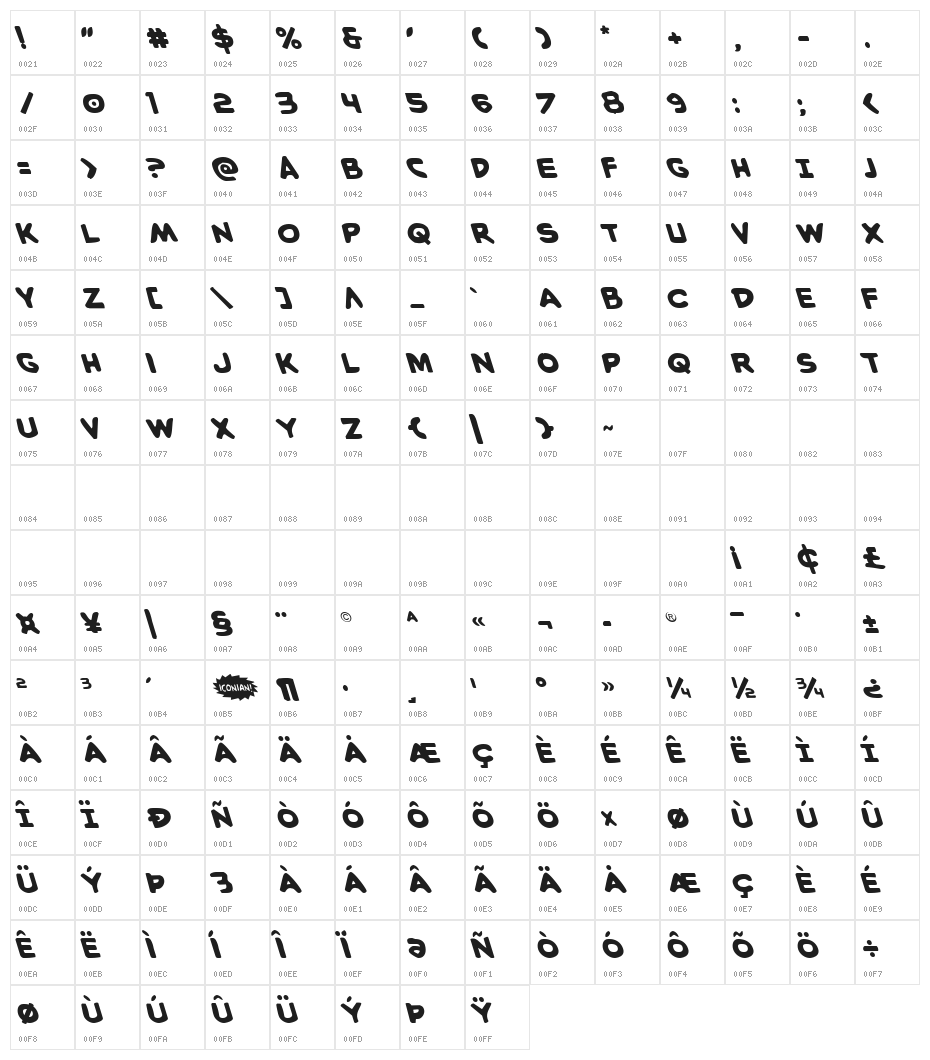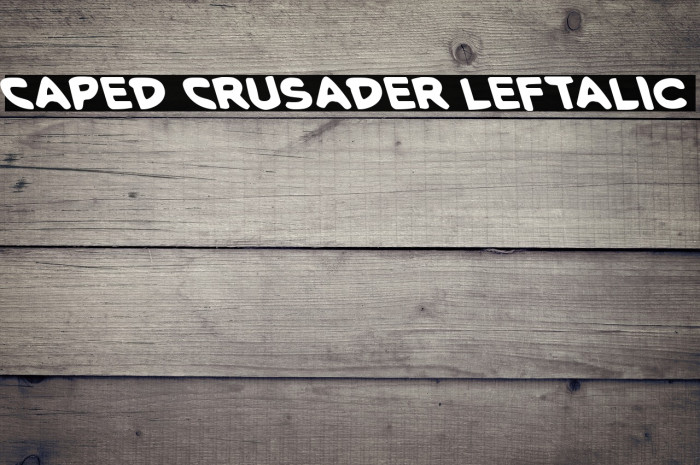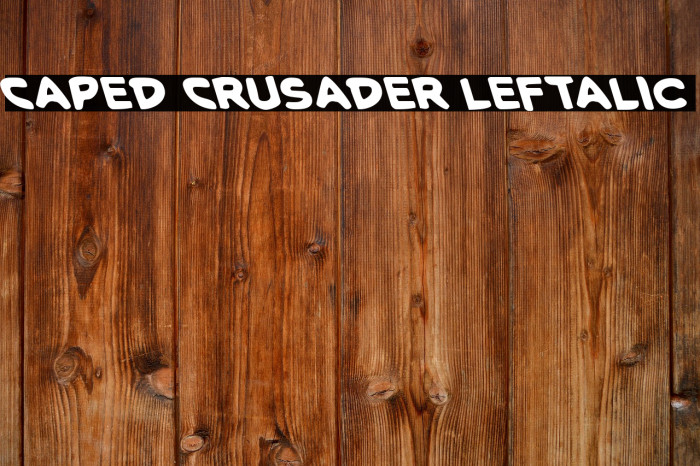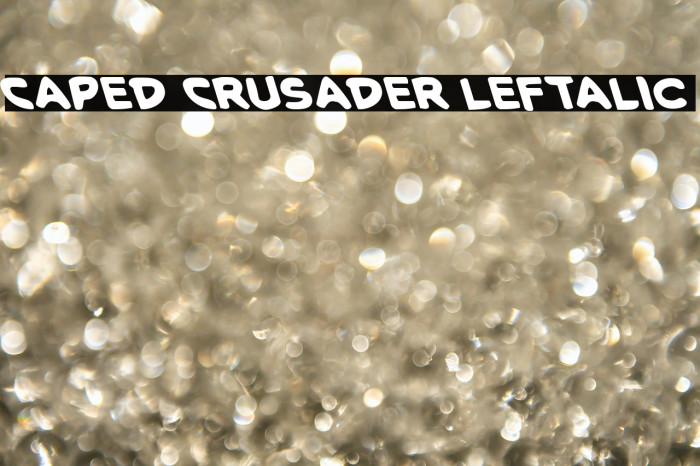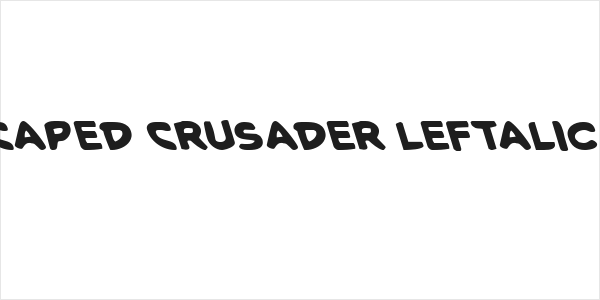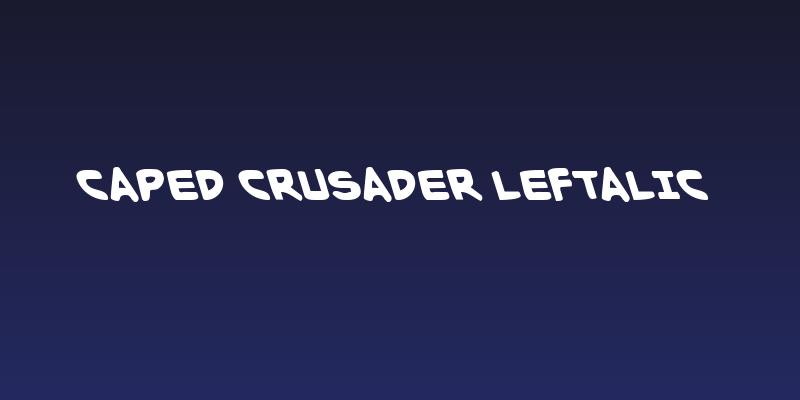
Caped Crusader Leftalic Font
Caped Crusader Leftalic Description
This font features a bold and playful design with a distinct leftward slant, giving it a dynamic and energetic appearance. The characters are rounded and thick, providing a sense of robustness and approachability. The uppercase and lowercase letters maintain a consistent style, with a slightly exaggerated curvature that adds to the whimsical feel. Numbers and special characters are equally bold, ensuring readability and uniformity across different uses. The overall style is reminiscent of comic book lettering, making it ideal for projects that require a fun and engaging visual impact.
| Overall Style | Playful, Comic |
| Proposed Projects | Ideal for comic books, children's books, playful branding, and posters. |